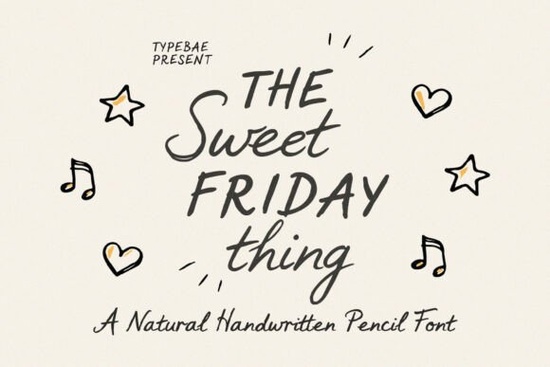
When you need a typeface that feels like it was just scribbled in the margins of a notebook, the Sweet Friday Thing Font is a fantastic choice. It captures the subtle texture and pressure variations of actual graphite on paper, giving your projects a highly personal and intimate vibe. Instead of looking like a perfectly polished digital file, it brings a warm, doodle-chic aesthetic that resonates well with audiences looking for authenticity.
What makes a pencil-style font feel authentic?
The secret lies in the imperfections. Digital typography often feels too rigid, but a good handwritten font mimics the physical act of writing. This specific typeface features natural pressure variations, meaning some strokes look slightly thicker where a real pencil would press harder into the page. The casual, breezy rhythm prevents the text from looking stiff. When you are designing for an audience that values handmade goods or personal stories, these tiny visual cues build immediate trust. It feels approachable and heartwarming, rather than corporate or overly manufactured.
Where should you use casual handwritten typography?
Because of its relaxed and intimate feel, this font works best in contexts where you want to connect with the viewer on a personal level. Here are the most effective ways to apply it:
- Lifestyle blog headers: It sets a welcoming tone for readers diving into personal essays, daily routines, or home decor tips.
- Children’s book titles: The playful, sketchbook quality appeals to kids and parents alike, making the story feel like a bedtime tale.
- Artisanal product labels: If you sell handmade soaps, baked goods, or candles, this typography reinforces the handmade nature of your craft.
- Personalized social media quotes: It stands out in a feed full of bold, sans-serif text by offering a soft, relatable visual.
How does it compare to other casual script options?
Choosing the right handwritten style depends on the specific mood of your project. If you need something with a bit more structure and flowing elegance, you might prefer the Nebraska Bridge typeface. On the other hand, if your design requires a slightly cleaner, more legible script for smaller text sizes, the Heia lettering could be a better fit.
What are the best practices for pairing pencil fonts?
Handwritten fonts can be tricky to pair because they carry a lot of visual weight and personality. To keep your designs readable and balanced, follow these simple rules:
- Pair with a clean sans-serif: Use a simple, geometric sans-serif for your body text. This creates a nice contrast between the casual header and the structured information.
- Limit your font count: Stick to two fonts maximum. Let the handwritten font be the star of the show for headings, and keep everything else understated.
- Use plenty of white space: Sketchbook styles need room to breathe. Crowding the text will ruin the relaxed, doodle-chic vibe you are trying to achieve.